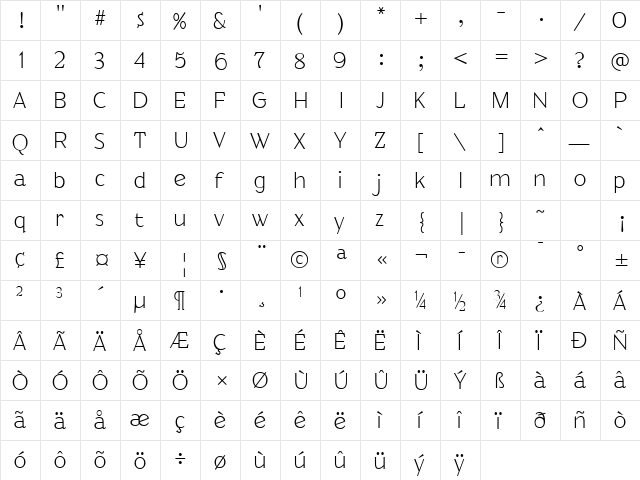
Qualettee Regular
Design Context for Qualettee Typeface
Qualettee takes a measured approach to typography — its balanced proportions and neutral character make it a reliable workhorse for both digital and print work.